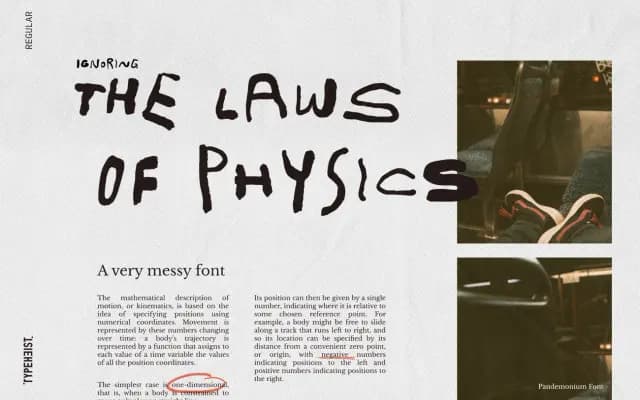
Pandemonium
A deliberately chaotic handwriting font with four alternating character sets and 78 scribble glyphs, designed to feel genuinely unpredictable on the page.
Each letter shifts in width, weight and texture, with skinny strokes sitting next to bold, scratchy ones in a way that resists any sense of mechanical regularity. Four complete sets of A-Z and 0-9 characters rotate through to keep repetition from settling in, while 78 scribble glyphs add extra visual noise via keyboard shortcuts. Extended Latin coverage makes it usable across multiple languages despite its rough, anarchic character.
An irregular, scratchy handwriting font with deliberately erratic letterforms that vary in width and weight, placing it firmly in the script/handwriting category rather than any formal script tradition.